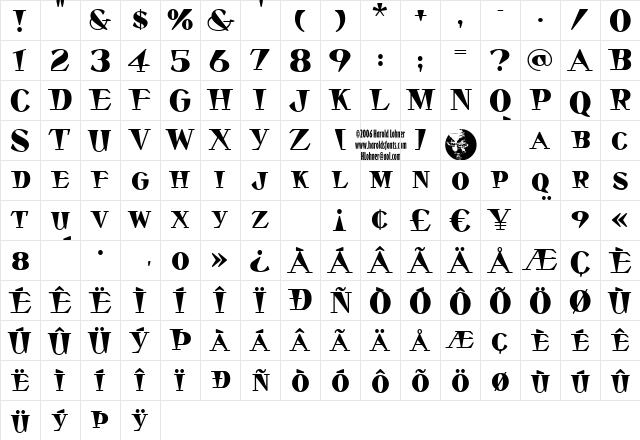
Stella Dallas Regular
Design Context for Stella Dallas Typeface
Stella Dallas is a composed and adaptable typeface that performs quietly and consistently across a wide range of design contexts.